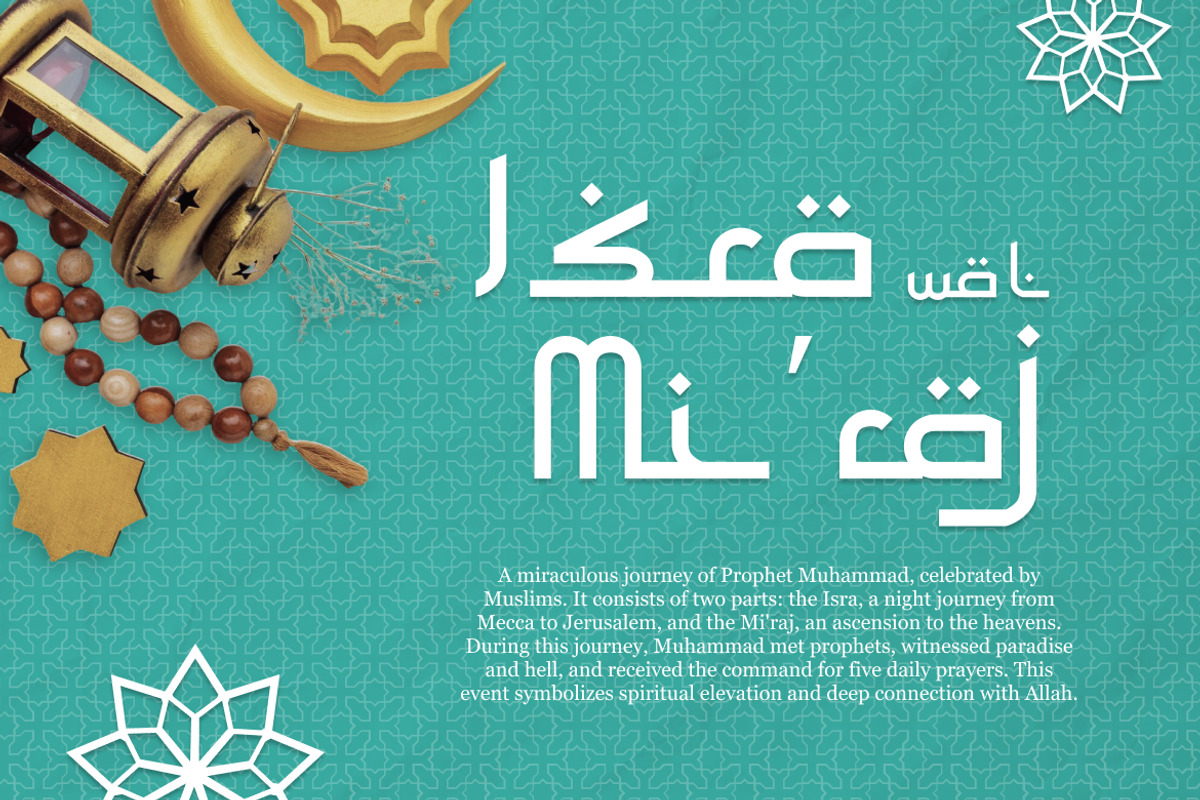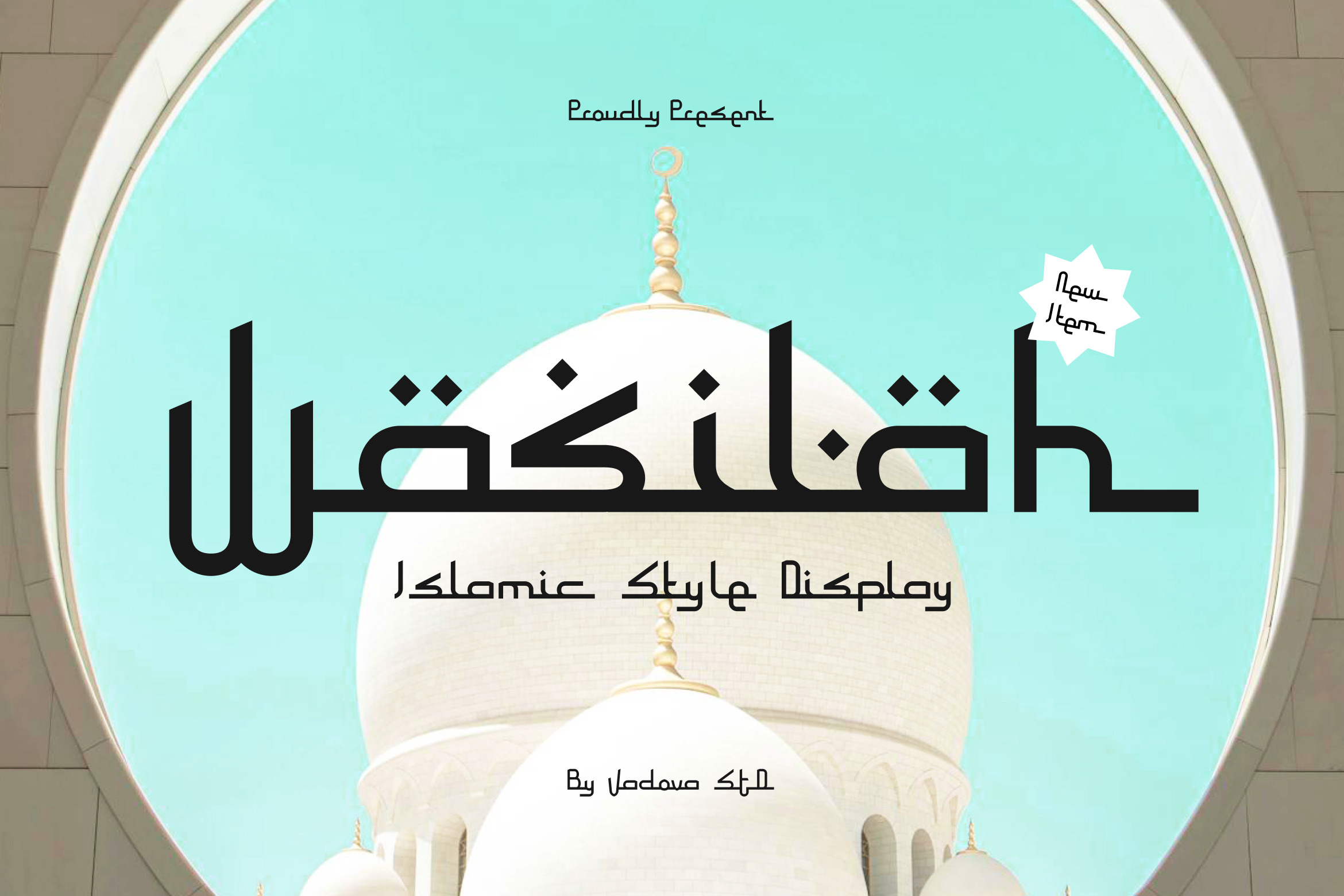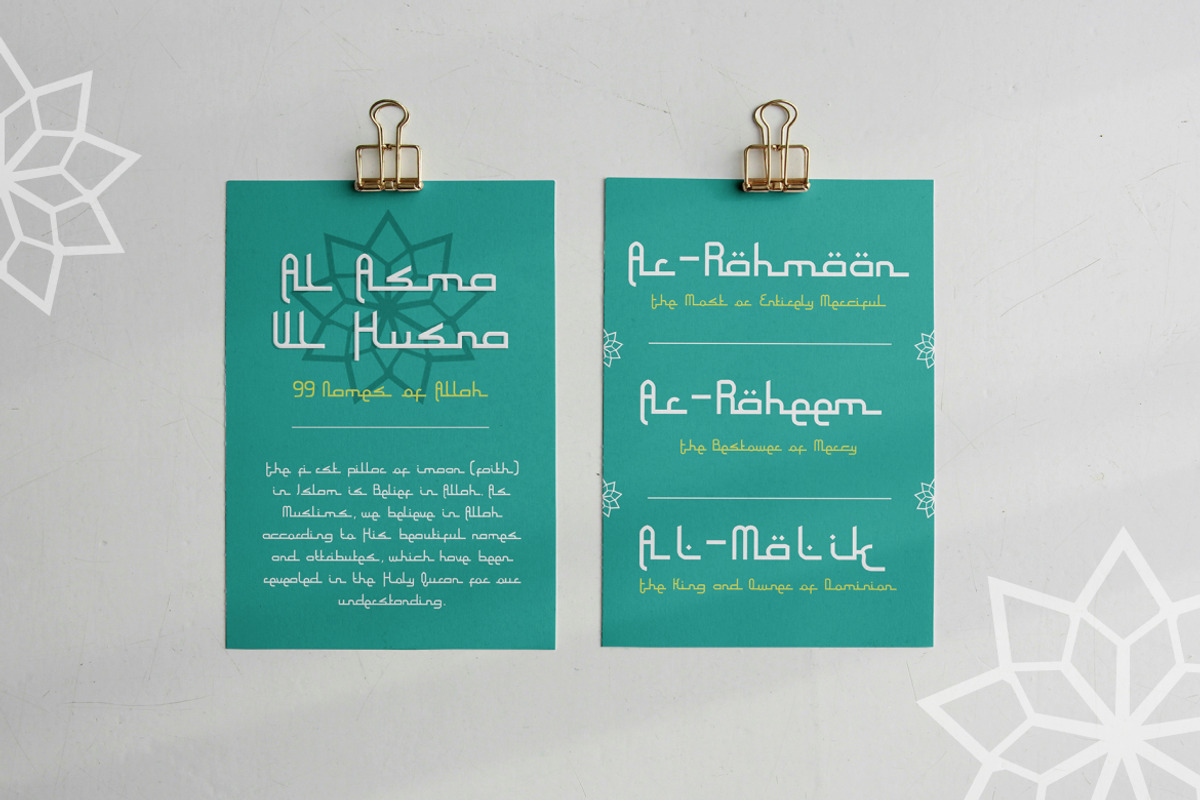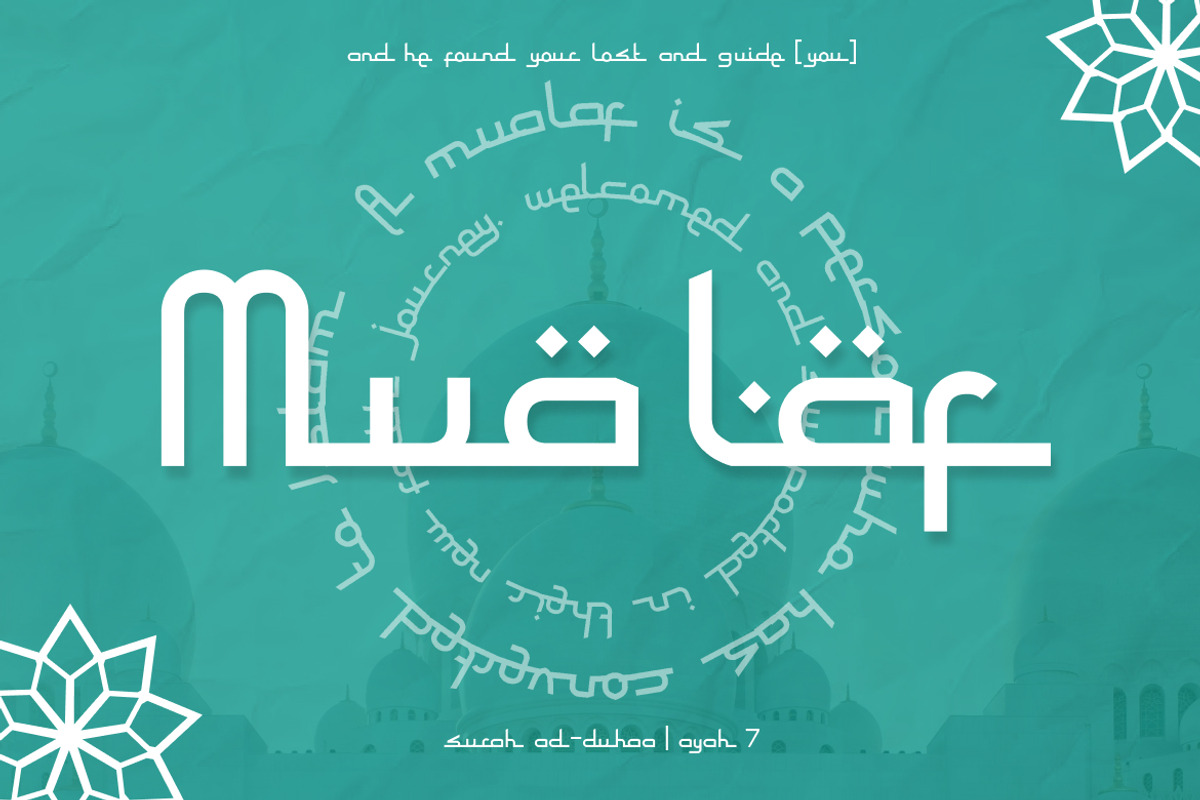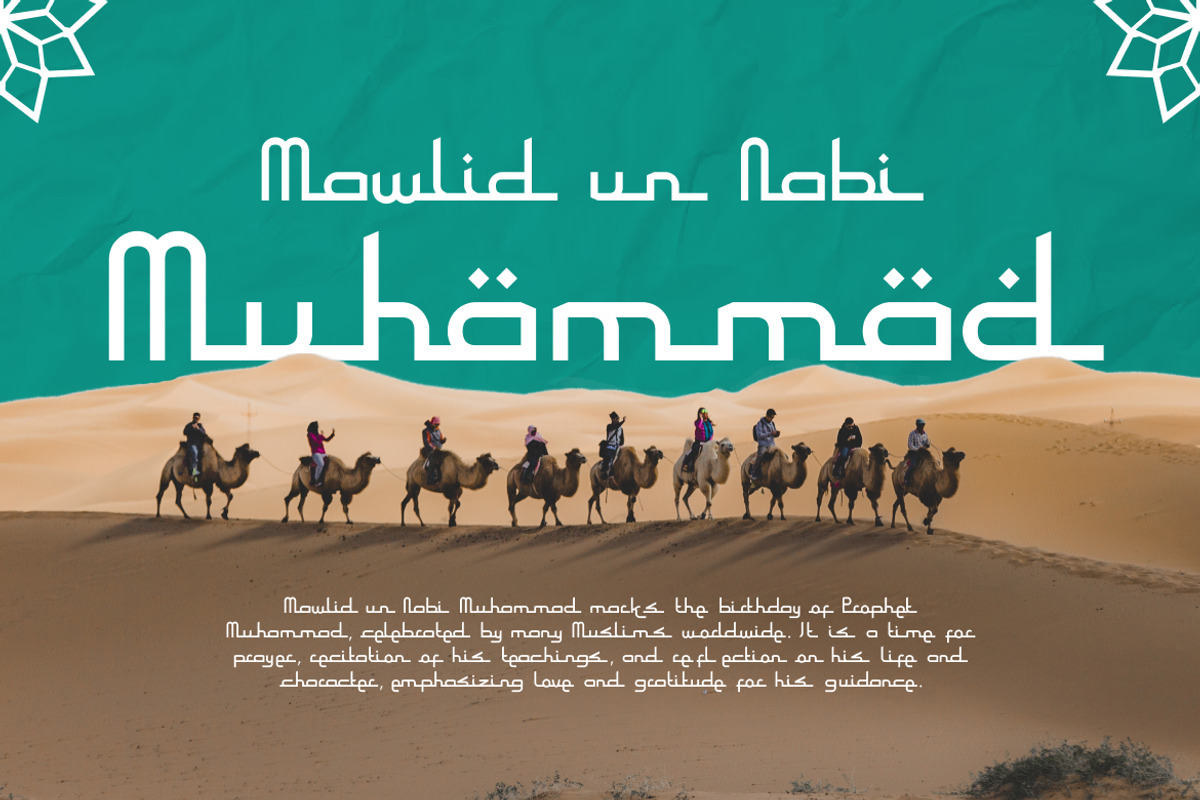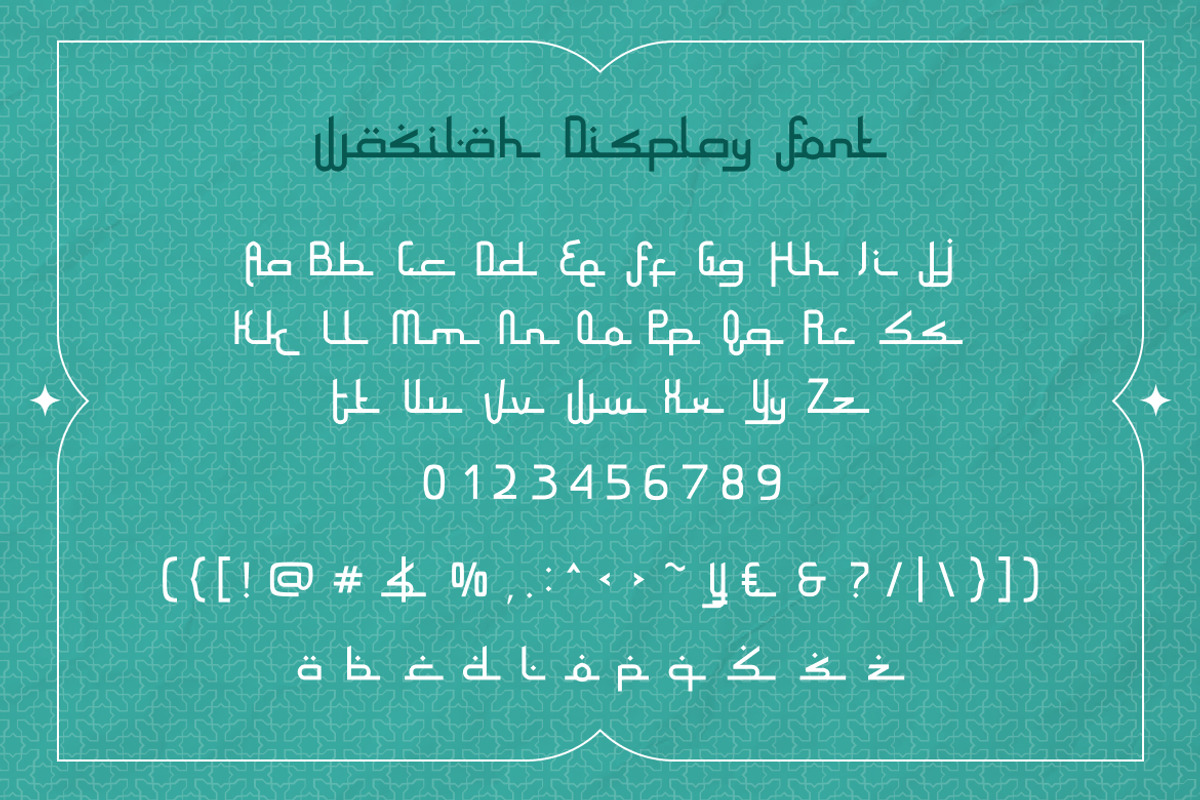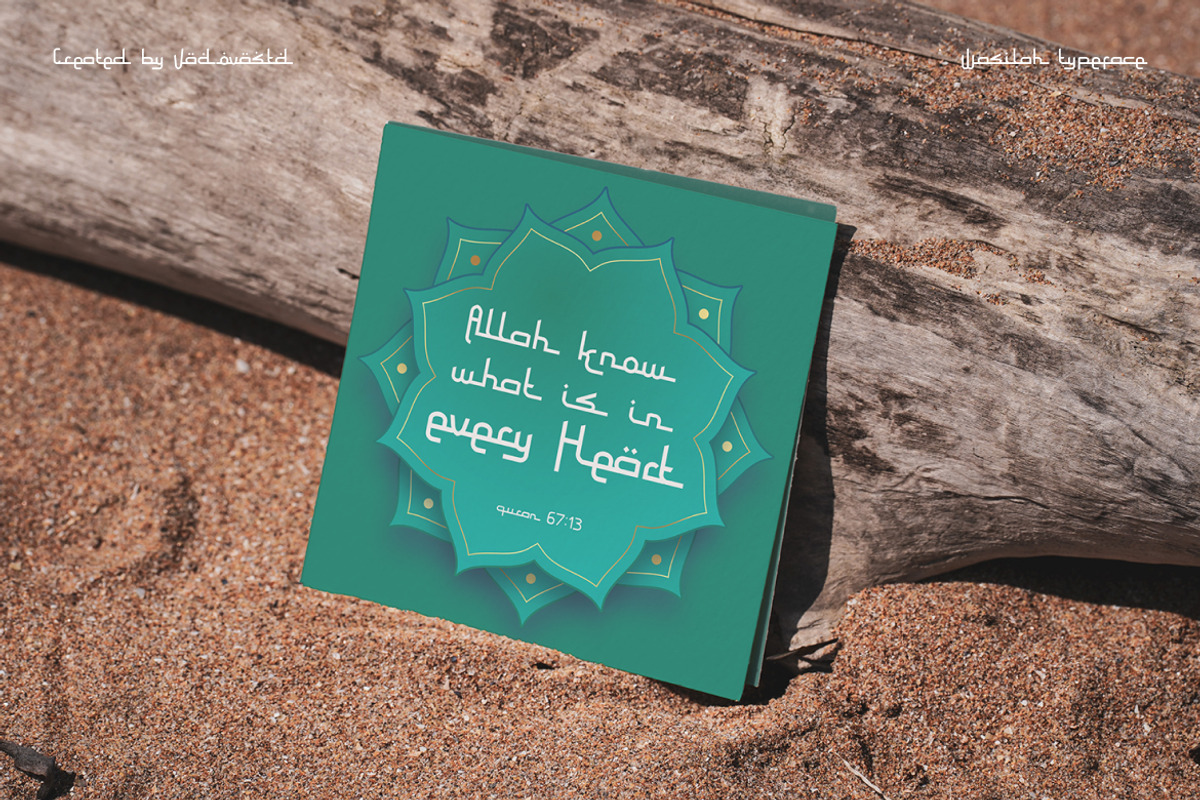
Wasilah Islamic Style Display Font
Wasilah presents a contemporary Arabic-inspired typeface shaped by geometric calligraphic construction and refined ornamental details. The character set includes uppercase, lowercase, numerals, punctuation, and multilingual glyph support designed with consistent stroke rhythm and elegant spacing. Decorative diacritic elements and architectural influences create a distinctive cultural tone suitable for display typography.
Wasilah reflects cultural elegance and architectural inspiration, making it relevant for Ramadan and Eid campaign visuals, mosque and community branding, halal product packaging, Islamic educational materials, greeting cards, spiritual quotes, event posters, and culturally themed digital content where expressive Arabic-influenced typography enhances atmosphere and identity.
- Geometric Arabic-inspired structure with balanced horizontal flow
- Decorative diacritics adding cultural character and identity
- Smooth monoline strokes with softly rounded corners
- Connected baseline forms reflecting Arabic calligraphic rhythm
- Clean spacing for clear and expressive display readability
- Islamic brand identities and mosque-related visual systems
- Ramadan, Eid, and religious celebration design materials
- Arabic-inspired posters, covers, and headline compositions
- Cultural packaging, labels, and themed merchandise design
- Social media graphics and promotional visuals with Islamic aesthetics
Wasilah express your message through refined Islamic display lettering